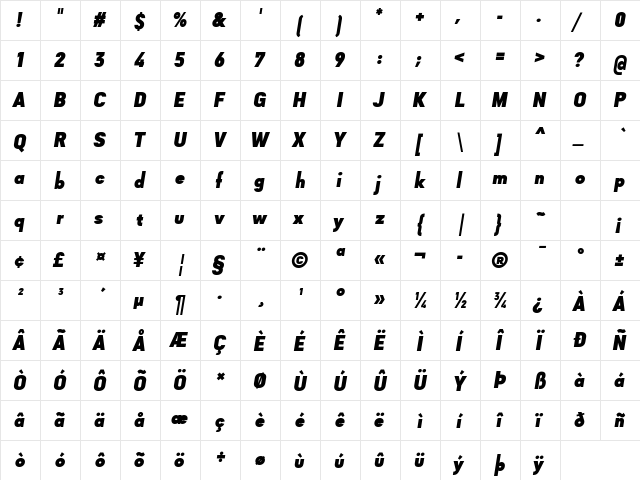
Goldbill XS ExtraBold Italic
Design Context for Goldbill Typeface
Goldbill takes a measured approach to typography — its balanced proportions and neutral character make it a reliable workhorse for both digital and print work. Its italic angle brings a sense of urgency and motion to the letterforms. Its bold stroke weight gives it real presence on the page.
Pro Tip: Use Goldbill for emphasis, pull quotes, and subheadings where its slanted energy can add rhythm to the layout.